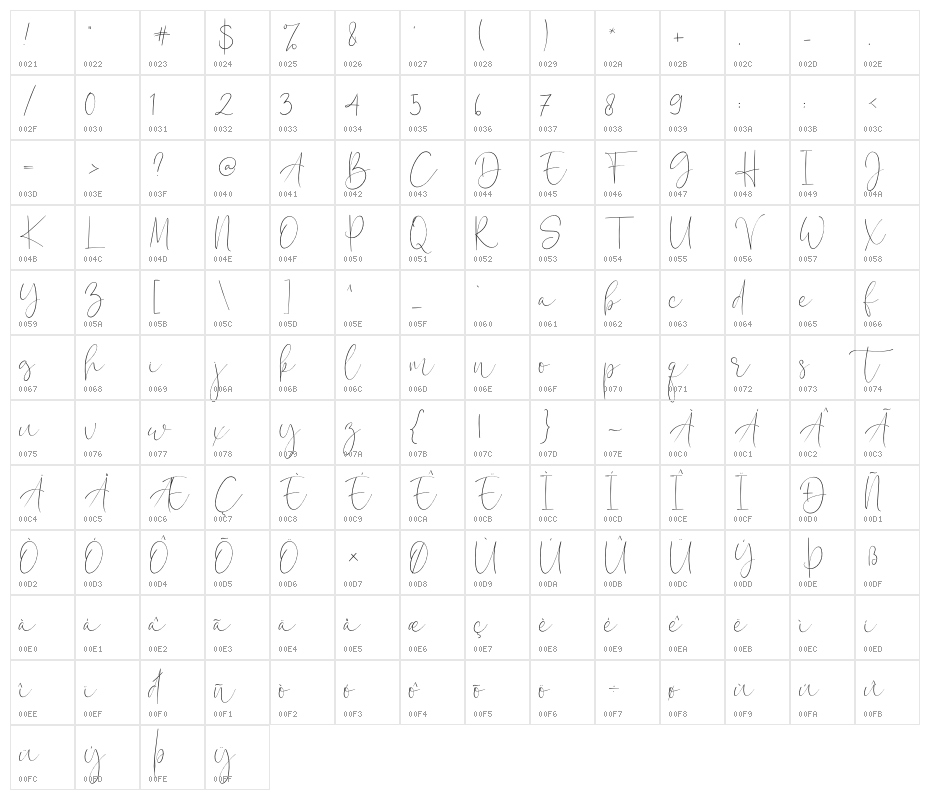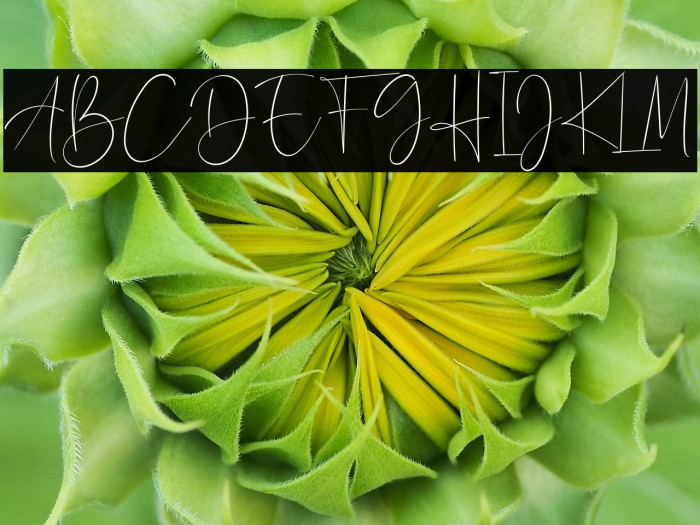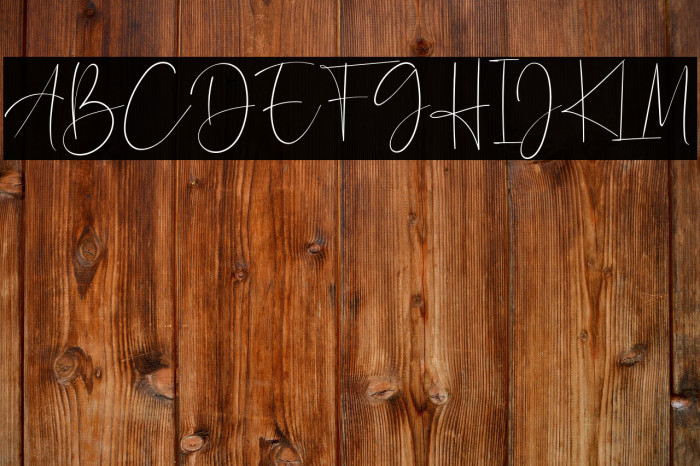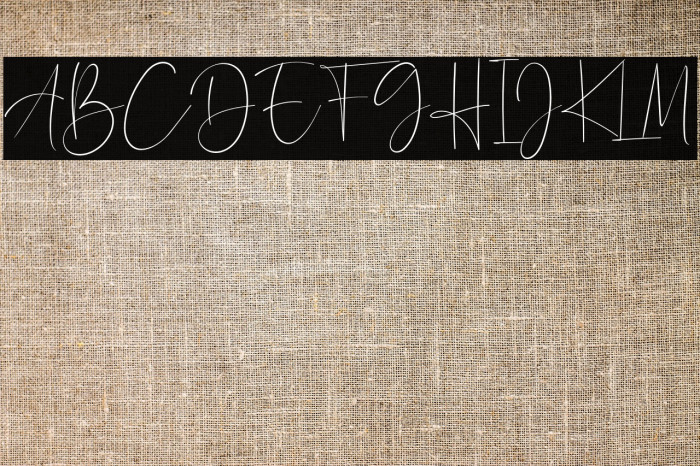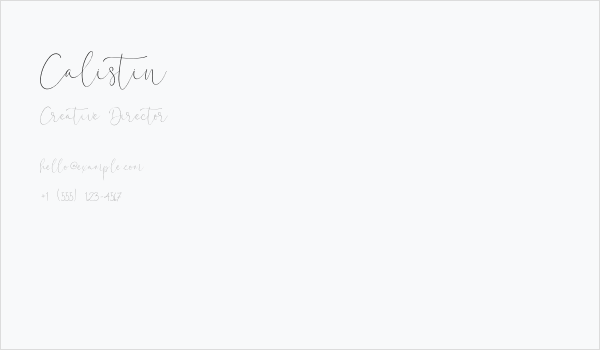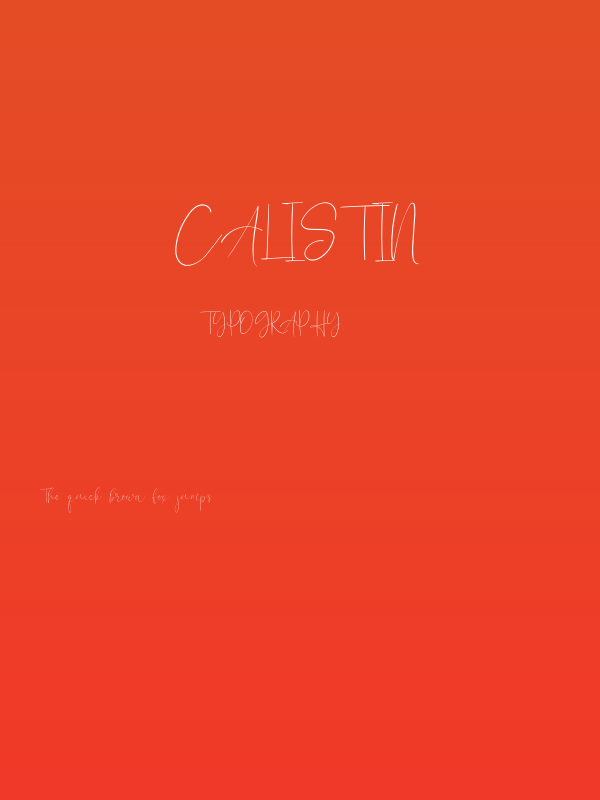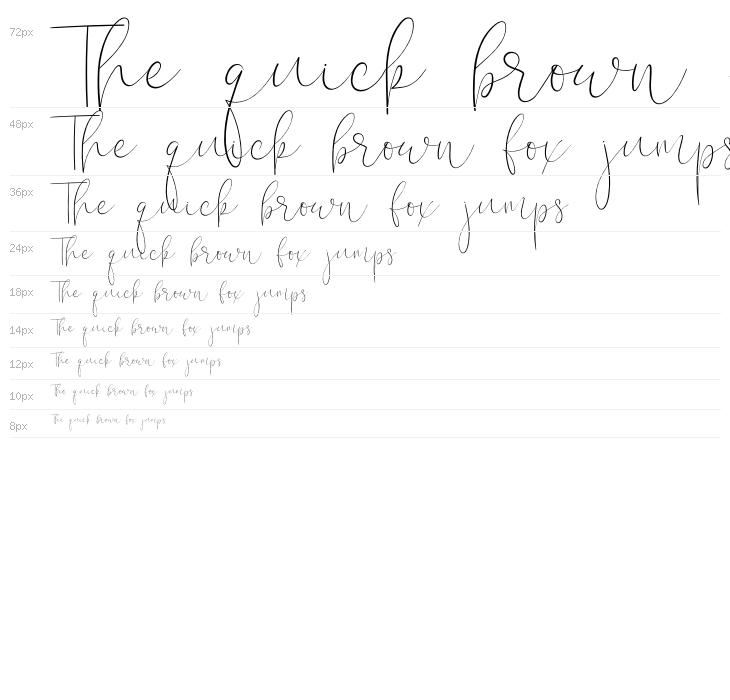
Calistin Font
Calistin Description
A delicate, flowing script font with a handwritten style, featuring thin strokes and elegant curves.
| Use Case | Logos, Invitations |
| Proposed Projects | Invitations, greeting cards, personal branding. |